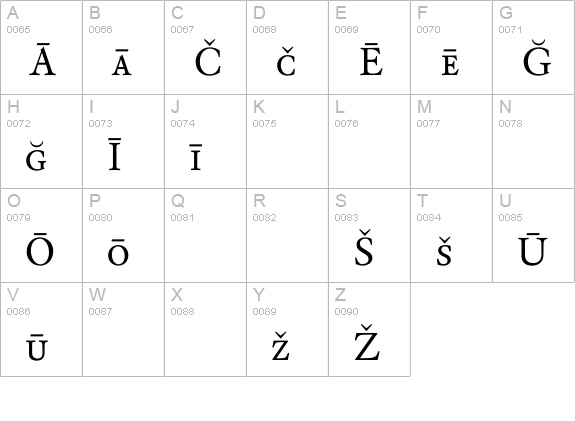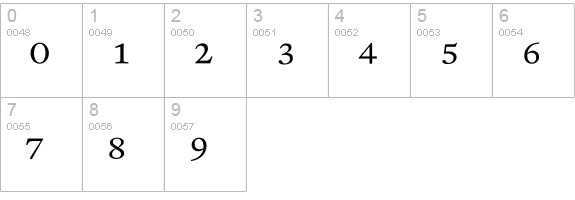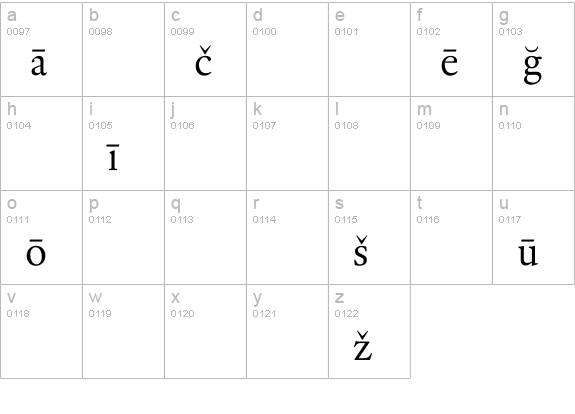
RenardNo3-RomanPi is a stunningly elegant font that exudes a sense of sophistication and refinement. Its meticulously crafted letterforms seamlessly blend classic and contemporary design elements, making it a versatile choice for a wide range of projects. With its clean lines and timeless appeal, RenardNo3-RomanPi adds a touch of class to any design. Whether you're creating a logo, designing a website, or crafting a print advertisement, this font effortlessly captures attention and elevates the overall aesthetic. What sets RenardNo3-RomanPi apart is not just its impeccable design, but also its availability. This magnificent font is freely available to download at FontsMarket.com. By offering this font for free, the creators of RenardNo3-RomanPi have made it accessible to designers and creatives from all walks of life, regardless of their budget or resources. In addition to being free, RenardNo3-RomanPi is also incredibly easy to work with. Its well-balanced letterforms and consistent proportions ensure legibility and readability, even at smaller sizes. This makes it a perfect choice for body copy, headlines, or any other text element you may need. Whether you're a professional designer or a hobbyist, RenardNo3-RomanPi is a must-have font in your collection. Its timeless beauty, versatility, and most importantly, its availability for free download at FontsMarket.com, make it an invaluable asset for any creative endeavor. So don't miss out on this opportunity to enhance your designs with the elegance and charm of RenardNo3-RomanPi.